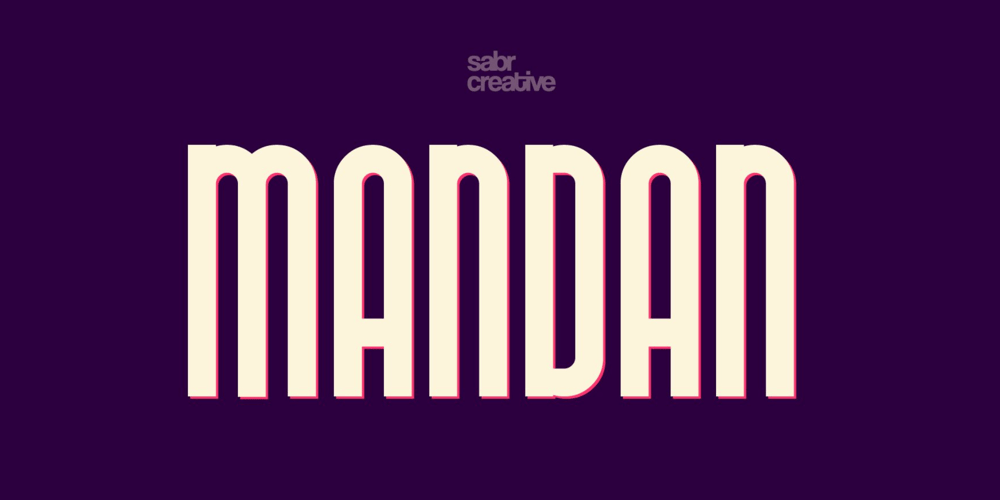
Mandan Font Family was designed by Irpan Maulana and published by Sabrcreative. Mandan contains 1 styles and family package options. Elevate your designs with Mandan, a bold sans serif display font that exudes power and impact. With its strong and commanding presence, Mandan is perfect for headlines, logos, posters, and any design that requires a bold statement.Featuring both uppercase and lowercase letters, Mandan offers versatility in crafting captivating compositions. The inclusion of numbers and punctuations ensures seamless integration into your design projects, whether it’s for digital or print media. Additionally, the font’s multilingual support allows you to reach a diverse global audience and communicate your message effectively.Mandan is designed with precision and attention to detail, providing a clean and modern aesthetic. Its PUA encoding enables easy access to special characters and symbols, expanding your creative possibilities. The font’s bold strokes and distinct letterforms make it stand out in any design, capturing attention and leaving a lasting impression.